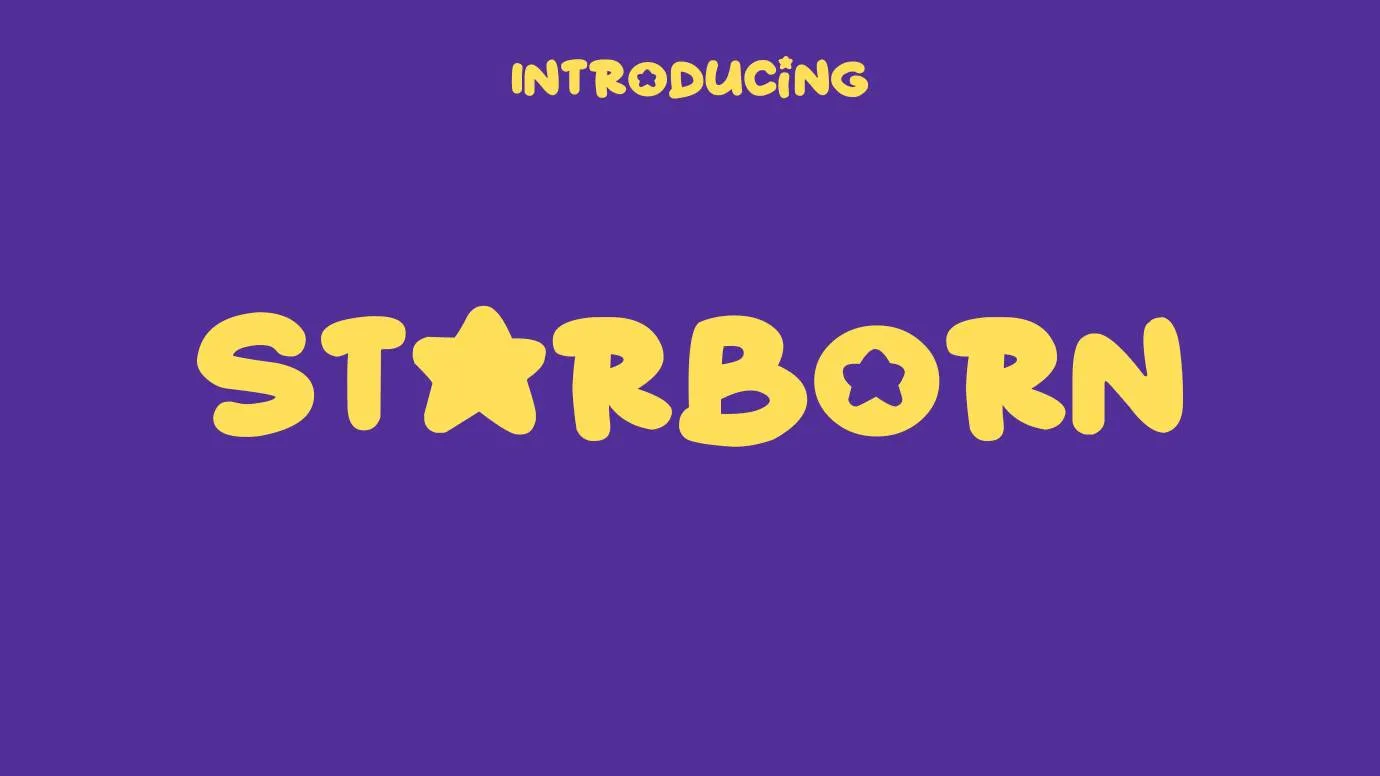
Starborn Font Family is a cartoon fancy typography and is mainly categorized as the fancy family of fonts. This tremendous typeface was developed by a very famous UK-based font designer named Darrell Flood.
Starborn Font